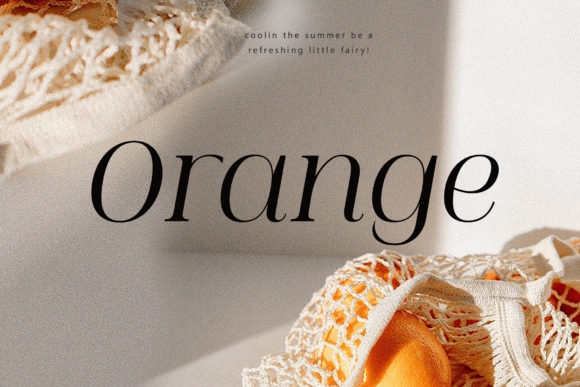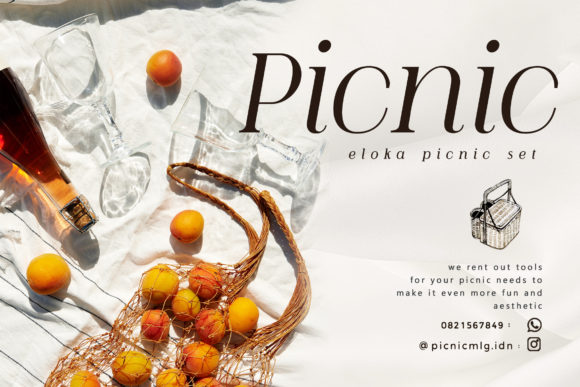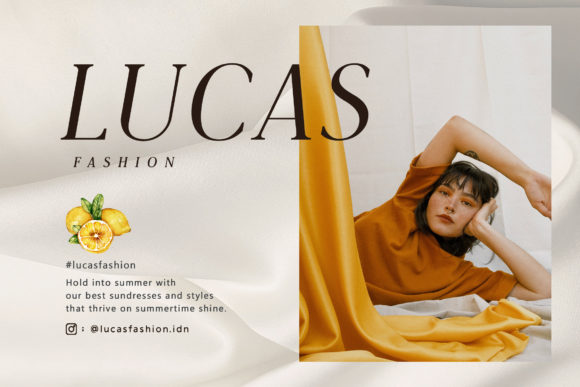
Introduction to Shigatsu Font
Do you ever find yourself scrolling through a design inspiration board, stuck on a single image that perfectly captures the essence of your creative project? For me, it’s the delicate balance of typography and background that truly makes a design stand out. And that’s exactly what the Shigatsu Font brings to the table – an elegant, thin lettered serif font that’s perfect for a wide variety of designs.
With its neat and simple style, the Shigatsu Font is a valuable resource for designers looking to add a touch of sophistication to their work. Whether you’re working on a high-quality brochure, a website with a transparent background, or even a social media graphic, this font is sure to elevate your design game. And the best part? It’s available for a free download, making it an accessible design resource for creatives of all levels.
- Designed with a unique, modern aesthetic, making it an excellent choice for designers looking for a distinctive and creative look.
Honest Review: Shigatsu Font
As a designer, I’m always on the lookout for high-quality design resources to elevate my creative projects. Recently, I stumbled upon the Shigatsu Font, and I’m excited to share my honest review with you.
First impressions: the Shigatsu Font has a clean, modern aesthetic that’s perfect for digital design. The font features a transparent background, making it easy to layer and composite with other design elements. The font is also available for free download, which is a major plus for designers on a budget.
What works well: ✨ The Shigatsu Font has a versatile design that can be used for a wide range of creative projects, from branding and marketing materials to web design and social media graphics. The font is also highly customizable, with a range of styles and weights to choose from.
Limitations: ⚠️ While the Shigatsu Font is a solid design resource, I did find it to be a bit limited in terms of character set and language support. This may be a issue for designers working on projects that require a broader range of characters and languages.
Overall impression: I’m really impressed with the Shigatsu Font, and I think it’s a great addition to any designer’s toolkit. With its high-quality design, transparent background, and free download option, it’s a must-have resource for any creative project.
Common Use Cases for Shigatsu Font
Shigatsu Font is suitable for various creative projects, including graphic design, digital art, and typography. You can use it for titles, headings, and body text to create visually appealing designs.